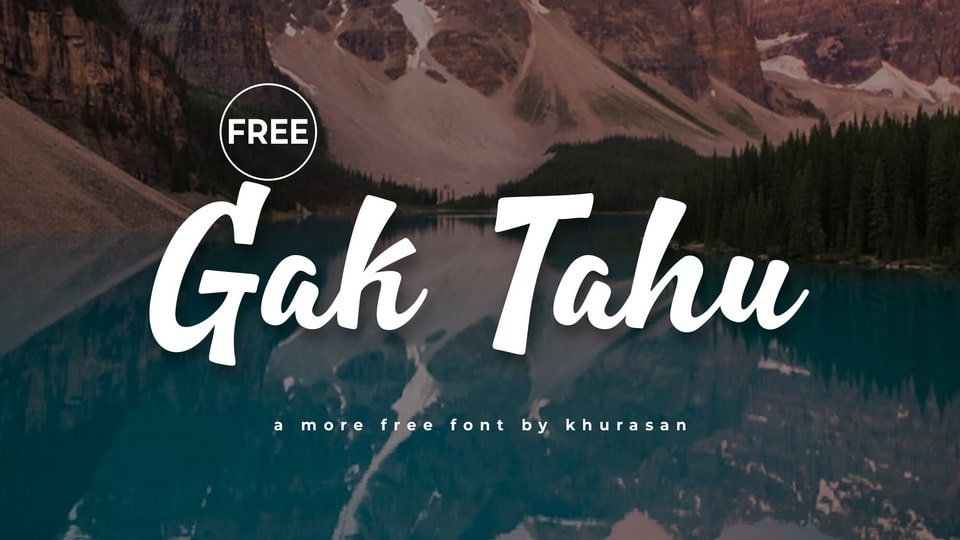
Download Gak Tahu font, a relaxed handwritten script with a natural flow and casual character. Its smooth strokes and slightly uneven rhythm give it an organic, friendly feel that looks effortless and authentic.